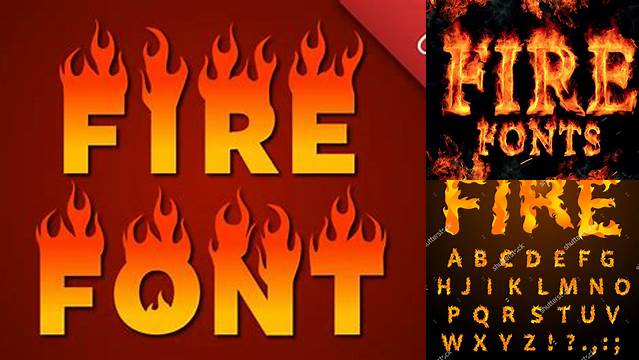
Fiery Fonts: Free Downloads For Doomsday Typography
Hey guys! Are you looking to add some serious heat to your designs? Then you've come to the right place! In this article, we're diving deep into the world of fire doomsday fonts, exploring everything you need to know to find, download, and use these scorching typefaces for free. We'll cover a ton of ground, from the different styles available to the best places to snag them, ensuring your projects pack a fiery punch. So, let's get started and set the typography world ablaze!
1. Understanding Fire Doomsday Fonts: What Makes Them Unique?
Fire doomsday fonts aren't just your average typefaces. They're designed to evoke a sense of destruction, intensity, and raw power. Think apocalyptic scenarios, fiery infernos, and the end of the world as we know it. These fonts often feature jagged edges, distressed textures, and a generally chaotic aesthetic. Fire doomsday fonts are perfect for projects that need a bold, attention-grabbing look, such as game titles, movie posters, and even heavy metal album covers. The unique character of these fonts stems from their ability to visually communicate urgency and drama. You can almost feel the heat radiating off the screen when you see a well-crafted fire doomsday font in action. This is why understanding the specific qualities that make them stand out is crucial for choosing the right font for your project.
2. Key Characteristics of Fire Doomsday Typography
So, what exactly defines fire doomsday typography? Several key characteristics set these fonts apart. First, many feature distressed or textured designs, giving the impression of being burned, cracked, or weathered. This adds a tactile quality to the text, making it feel more real and impactful. Another common trait is the use of sharp, jagged edges, which contribute to the sense of danger and chaos. The letterforms themselves often have an irregular or asymmetrical appearance, further enhancing the apocalyptic vibe. Fire doomsday fonts also tend to be bold and heavy, commanding attention and conveying a sense of strength. Think about the way flames flicker and dance – this dynamic movement is often mirrored in the letterforms, creating a visual representation of fire itself. By understanding these core characteristics, you can better appreciate the artistry behind fire doomsday typography and how it effectively communicates a specific mood and message.
3. Exploring Different Styles of Fire-Themed Fonts
The world of fire-themed fonts is surprisingly diverse. You're not just limited to one look! There are fonts that mimic the molten glow of lava, others that resemble the charred remnants of a blaze, and still more that capture the explosive energy of a wildfire. Some fonts lean towards a more grungy, industrial aesthetic, while others have a distinct fantasy or sci-fi flavor. For instance, a font with rough, uneven edges and a slightly smoldering texture might be perfect for a post-apocalyptic video game. On the other hand, a font with sharper, more angular letterforms could be ideal for a futuristic dystopia. It's all about finding the right style to match your specific project. Exploring different styles allows you to find that perfect fit, ensuring your message is conveyed with the intended impact and visual flair. Don't be afraid to experiment and see what sparks your creativity!
7. Installing Fire Doomsday Fonts on Windows and Mac
Okay, you've found the perfect fire doomsday font, downloaded it, and checked the license. Now what? It's time to install it on your computer! The process is pretty similar on both Windows and Mac. On Windows, you typically just right-click on the font file (usually a .ttf or .otf file) and select "Install." Alternatively, you can copy the font file to the Fonts folder in your Windows directory. Installing fire doomsday fonts on Windows and Mac is easy, so don't worry! On a Mac, you can double-click the font file and then click the "Install Font" button in the Font Book application. Once the font is installed, it should be available in your design software, like Adobe Photoshop or Illustrator. If you're having trouble, restarting your computer can sometimes help. With the font installed, you're ready to unleash its fiery power in your projects!
8. Using Fire Fonts in Adobe Photoshop: A Step-by-Step Guide
Adobe Photoshop is a powerhouse for graphic design, and it's a fantastic place to experiment with fire fonts. Using fire fonts in Adobe Photoshop can create truly striking visuals. Here’s a quick step-by-step guide: First, open Photoshop and create a new document or open an existing one. Select the Type Tool (T) and click on your canvas to start typing. Choose your newly installed fire doomsday font from the font dropdown menu in the Character panel. Adjust the size, color, and other properties of your text as needed. To really make the font pop, consider adding effects like a drop shadow, outer glow, or a gradient overlay. You can also experiment with blending modes to create unique and fiery textures. Photoshop’s layer styles can help to give the font that extra bit of realism. By experimenting with different techniques, you can create truly eye-catching typography that captures the essence of fire and destruction.
9. Integrating Fire Typography in Adobe Illustrator: Tips and Tricks
Just like Photoshop, Adobe Illustrator is another excellent tool for working with fire typography. Integrating fire typography in Adobe Illustrator allows for precise control over the design elements. To get started, create a new document in Illustrator and use the Type Tool (T) to add your text. Select your fire doomsday font from the Character panel and adjust the size and style. One of Illustrator's strengths is its ability to work with vector graphics, which means you can easily scale and manipulate your text without losing quality. Experiment with the Pathfinder panel to combine shapes and create unique letterforms. You can also use effects like Roughen or Zig Zag to add a distressed look to your text. Tips and tricks in Illustrator, such as using gradients and blends, can give your fire fonts a more dynamic and three-dimensional appearance. Consider adding a stroke with a rough brush to mimic the look of flames. With Illustrator’s powerful tools, you can craft typography that truly ignites your designs.
10. Best Practices for Combining Fire Fonts with Other Typefaces
Combining fire fonts with other typefaces can be tricky, but when done well, it can create a really compelling visual hierarchy. Best practices involve pairing fire doomsday fonts, which are often highly stylized, with simpler, more legible fonts. Think of fire fonts as the headline grabber – the star of the show – and other fonts as the supporting cast. For body text, choose a clean and easy-to-read font like Open Sans, Roboto, or Lato. These fonts won’t compete with the fire font and will ensure that your message is clear. In headlines, use the fire doomsday font sparingly, highlighting key words or phrases. Consider using different font weights and sizes to create visual interest. The goal is to create a balanced and harmonious design where each font plays its role effectively. A strong contrast between fonts can also add visual impact, but make sure the fonts still complement each other thematically. Careful planning will ensure your typography makes a bold statement without overwhelming the viewer.
11. Creating a Fiery Text Effect in Photoshop: A Practical Tutorial
Want to take your fire fonts to the next level? Creating a fiery text effect in Photoshop can add a dramatic and realistic touch to your designs. A practical tutorial typically starts with adding your text using a fire doomsday font. Then, you'll add several layer styles to simulate the look of flames. Start with a Bevel & Emboss to give the text some depth, followed by an Outer Glow to create a fiery aura. Next, you can add a Color Overlay or Gradient Overlay in shades of red, orange, and yellow to mimic the colors of fire. A key step is to use the Smudge Tool to distort the edges of the text and create a more organic, flame-like shape. You can also use the Liquify filter for more dramatic distortions. Adding texture, such as a fire or smoke overlay, can enhance the realism of the effect. Experiment with different blending modes for these overlays to see what works best. With a bit of practice, you can master this technique and create stunning fiery text that will set your designs ablaze!
12. Designing Logos with Fire Doomsday Fonts: Dos and Don'ts
Designing logos with fire doomsday fonts can be a bold choice, but it's important to approach it strategically. Dos and don'ts revolve around ensuring the logo remains legible and memorable. Fire fonts are often very stylized, so it’s crucial to choose one that is still clear and easy to read, even at smaller sizes. Don’t use overly intricate or complex fonts, as they can become muddled and difficult to decipher. Do consider the overall brand identity. Fire fonts are best suited for brands that want to convey a sense of power, intensity, or rebellion. Don’t use them if your brand is trying to project a more gentle or approachable image. Do keep the design simple and clean. A logo should be easily recognizable and scalable. Don’t clutter it with too many elements or effects. Do test the logo in various sizes and applications to ensure it looks good on everything from business cards to websites. Designing a logo is a delicate balance, and using fire fonts requires a thoughtful approach to ensure the final result is both impactful and effective.
13. Using Fire Fonts in Game Design: Setting the Right Tone
In game design, typography plays a crucial role in setting the tone and atmosphere. Using fire fonts in game design can instantly convey a sense of danger, excitement, or apocalyptic chaos. A fire doomsday font is perfect for titles, menus, and in-game text that needs to grab the player's attention. Consider the genre of your game. Fire fonts are particularly well-suited for action, adventure, and horror games, where a sense of urgency and intensity is desired. Experiment with different font styles to find the perfect match for your game's aesthetic. A rough, textured fire font might be ideal for a post-apocalyptic survival game, while a more stylized font could work well for a fantasy game with fire-based magic. Think about how the font will appear on screen. It needs to be legible and easy to read, even during fast-paced gameplay. Use color and effects to enhance the fiery look. Glowing text, embers, and smoke effects can add to the immersive experience. By carefully selecting and implementing fire fonts, you can significantly enhance the visual impact and emotional resonance of your game.
14. Creating Eye-Catching Movie Posters with Fire Typography
Movie posters are all about grabbing attention, and fire typography can be a powerful tool for creating an unforgettable visual impact. Creating eye-catching movie posters with fire typography often involves using bold, dramatic fonts that convey the genre and theme of the film. Fire doomsday fonts are particularly effective for action, thriller, and horror movies, where a sense of danger and excitement is paramount. Consider the overall composition of the poster. The font should complement the imagery and not compete with it. Use contrasting colors to make the text stand out. A fire font in a bright, fiery color against a dark background can be incredibly striking. Experiment with different text layouts and arrangements to create a dynamic and visually appealing design. Think about the emotional impact you want to create. Fire fonts can evoke feelings of intensity, passion, and destruction. Use this to your advantage to create a poster that resonates with your target audience. A well-designed poster can make or break a movie, and the right typography is key to making a lasting impression.
15. Fire Fonts for Album Artwork: Capturing the Musical Vibe
Fire fonts for album artwork can be a fantastic way to visually represent the energy and intensity of the music. Capturing the musical vibe through typography is essential in album design, and fire doomsday fonts are particularly well-suited for genres like metal, rock, and industrial. These fonts can convey a sense of raw power, aggression, and rebellion, perfectly mirroring the sonic landscape of the music. Think about the overall aesthetic of the album. A fire font with a grungy, distressed look might be perfect for a heavy metal album, while a more stylized font could work well for a gothic rock band. Consider the color palette. Fire fonts often look best in bold, contrasting colors, such as red, orange, and black. Use effects like glows, shadows, and textures to enhance the visual impact of the font. Fire fonts can make the album artwork look fiery and striking. Pay attention to the legibility of the font. Even though fire fonts are designed to be dramatic, they still need to be readable. Typography plays a critical role in conveying the artist’s message, and carefully chosen fonts can create a visual identity that perfectly complements the music.
16. Designing Book Covers with Fire Fonts: Genre Considerations
Designing book covers with fire fonts can be a great way to signal the genre and tone of the story. Genre considerations are key when choosing a typeface, and fire doomsday fonts are particularly effective for thrillers, horror, fantasy, and post-apocalyptic fiction. These fonts can instantly evoke feelings of danger, excitement, and suspense. Think about the specific story you're trying to tell. A fire font with a rough, textured look might be perfect for a gritty urban fantasy novel, while a more elegant font could work well for a historical fantasy epic. Consider the overall design of the cover. The font should complement the imagery and not compete with it. Use color to create a visual impact. Fire fonts often look striking in bold, contrasting colors against a dark or dramatic background. Think about the target audience. A fire font might appeal to readers who enjoy high-octane stories with plenty of action and suspense. Book covers are visual cues that tell readers what to expect, and the right typography can draw the reader in. By carefully selecting and implementing fire fonts, you can create book covers that are both eye-catching and genre-appropriate.
17. Web Design Applications: When to Use Fire Doomsday Fonts
Web design applications can greatly benefit from the use of fire doomsday fonts, but it’s important to use them strategically. When to use fire doomsday fonts often depends on the nature of the website and the message it’s trying to convey. Fire fonts are particularly well-suited for websites that want to project a bold, edgy, or high-energy image. Think about the overall aesthetic of your website. If you're designing a website for a rock band, a gaming community, or a brand that wants to convey a sense of rebellion or intensity, fire fonts can be a great choice. Consider the user experience. Fire fonts can be visually striking, but they should be used sparingly. Overusing them can make your website look cluttered and difficult to read. Use fire fonts primarily for headings, titles, and other key elements that you want to draw attention to. Choose a font that is legible on screen. Some highly stylized fire fonts might look great in print but be hard to read on a computer monitor. Always test your design on different devices and browsers to ensure it looks good across the board. Careful use of fire fonts can make your website stand out, grab visitors' attention, and create a memorable online experience.
18. Social Media Graphics: Making a Statement with Fire Fonts
Social media graphics need to be eye-catching to stand out in a crowded feed, and making a statement with fire fonts is a great way to grab attention. Fire doomsday fonts can add a sense of drama, intensity, and excitement to your social media posts. Think about the message you're trying to convey. Fire fonts are particularly effective for posts that are announcing something important, promoting an event, or sharing a bold statement. Consider your brand identity. Fire fonts are a good fit for brands that want to project a strong, edgy, or energetic image. Use fire fonts sparingly and strategically. Overusing them can make your graphics look cluttered and overwhelming. Choose a font that is legible, even at small sizes. Social media posts are often viewed on mobile devices, so readability is key. Experiment with different colors and effects to enhance the fiery look. A fire font in a bright, contrasting color can really pop. Think about the overall visual hierarchy. The font should complement the imagery and other elements in your graphic. Well-chosen fire fonts can help your social media graphics stand out from the crowd and make a lasting impression on your audience.
19. Print Design Projects: Unleashing the Power of Fire Fonts
Print design projects can greatly benefit from the bold and dramatic look of fire fonts. Unleashing the power of fire fonts in print requires careful consideration of the overall design and the intended message. Consider the type of project you're working on. Fire doomsday fonts are particularly well-suited for posters, flyers, album artwork, and book covers, where a sense of intensity and excitement is desired. Think about the target audience. Fire fonts often appeal to those interested in action, horror, and fantasy genres. Use fire fonts strategically. They can be powerful, but overusing them can make your design look cluttered and overwhelming. Choose a font that is legible. Even though fire fonts are designed to be dramatic, they still need to be readable in print. Consider the paper stock and printing techniques. The texture and finish of the paper can affect how the font looks. Experiment with different colors and effects to enhance the fiery look. Fire fonts in bold, contrasting colors can make a strong visual statement. In print, fire fonts can add an unforgettable visual element, but make sure it aligns with your project's goals.
20. Legal Considerations: Copyright and Font Usage
Legal considerations are crucial when using any font, including fire doomsday fonts. Copyright and font usage are governed by licensing agreements, which dictate how you can legally use a particular typeface. Understand the font license. Before using a font, carefully read the licensing agreement. This will tell you whether the font is free for personal use, commercial use, or both. Some fonts require you to purchase a license for commercial projects. Be aware of restrictions. Some licenses may limit the number of users who can access the font or the types of projects you can use it for. Legal consideration is key when using fonts. Keep records of your font licenses. This can help you prove that you have the right to use a font if you ever face a legal challenge. Respect the designer's rights. Font designers invest a lot of time and effort into creating their typefaces, so it's important to respect their copyright. Be careful when downloading fonts from unknown sources. Make sure you're downloading from a reputable website to avoid malware and copyright infringement. Font licensing can be complex, but by understanding the basics, you can protect yourself and ensure you're using fonts legally.
21. DIY Font Creation: Designing Your Own Fire Typography
For the truly adventurous, DIY font creation can be a rewarding way to get exactly the fire typography you need. Designing your own fire typography gives you complete control over every aspect of the font, allowing you to create something truly unique. Start with the basics. If you're new to font design, begin with simple letterforms and gradually add more complex details. Use font design software. Programs like FontForge, Glyphs, and FontLab Studio offer a range of tools for creating and editing fonts. Get inspired by existing fire fonts. Study the characteristics that make them effective, such as distressed textures, jagged edges, and bold strokes. Experiment with different techniques to mimic the look of fire. You can use digital drawing tools to create flame-like shapes and textures. Pay attention to kerning and spacing. The space between letters is crucial for readability, so take the time to adjust the kerning and spacing carefully. Test your font. Use it in different projects and sizes to see how it looks and make any necessary adjustments. DIY font creation is a significant undertaking, but the result can be a one-of-a-kind fire font that perfectly matches your creative vision.
22. Combining Fire Fonts with Special Effects in After Effects
If you're working with motion graphics or video, combining fire fonts with special effects in After Effects can create some truly spectacular results. After Effects is a powerful tool for adding visual effects, and it can be used to enhance the fiery look of your typography. Start with your text layer. Add your text using a fire doomsday font. Use layer styles to create a glowing effect. Add an Outer Glow and a Drop Shadow to make the text stand out. Experiment with different blend modes. Blend modes can create interesting interactions between your text and other layers. Add fire and smoke elements. You can use stock footage or create your own fire and smoke effects. Use particle systems to create dynamic effects. After Effects' particle systems can be used to generate sparks, embers, and other fiery elements. Animate your text. Use keyframes to animate the position, scale, and rotation of your text to create a dynamic and engaging animation. In After Effects, combining fire fonts with special effects can take the look and feel of text to another level.
23. Pairing Fire Fonts with Color Palettes: Achieving the Right Mood
Pairing fire fonts with color palettes is crucial for achieving the right mood in your designs. The colors you use can significantly impact how your fire typography is perceived. Think about the emotions you want to evoke. Red, orange, and yellow are classic fire colors and convey a sense of passion, energy, and excitement. Black and dark gray can create a more intense and dramatic look. Consider the overall design context. The color palette should complement the imagery and other elements in your design. Use contrasting colors to make your fire font stand out. A bright fire font against a dark background can be very effective. Experiment with different color combinations. Try using gradients or color overlays to add depth and dimension to your text. Think about the psychological effects of color. Different colors can evoke different emotions, so choose your palette carefully. Colors are the emotions of your work. By thoughtfully pairing fire fonts with color palettes, you can create designs that are both visually striking and emotionally resonant.
24. Using Fire Fonts to Create a Sense of Urgency
Using fire fonts to create a sense of urgency is a powerful technique in design. Fire doomsday fonts inherently convey a sense of danger and immediacy, making them ideal for projects where you want to grab attention and prompt action. Think about the context in which you're using the font. Fire fonts are well-suited for sales promotions, event announcements, and calls to action. Use the font sparingly and strategically. Overusing it can dilute its impact. Pair the fire font with urgent language. Phrases like "Limited Time Offer," "Don't Miss Out," and "Act Now" can reinforce the sense of urgency. Use contrasting colors to make the text stand out. A bright fire font against a dark background can be particularly effective. Consider the overall design of your project. The fire font should complement the other elements and not compete with them. Fire fonts can make urgency clear. When used effectively, fire fonts can create a compelling sense of urgency that motivates your audience to take action.
25. The Psychology of Fire Fonts: How They Impact Viewers
The psychology of fire fonts is fascinating, as these typefaces can have a profound impact on viewers. Fire doomsday fonts evoke strong emotions and associations related to danger, excitement, and destruction. Think about the cultural associations of fire. Fire is often seen as both a destructive force and a source of warmth and light. The psychology of fire fonts depends on fire itself. Fire fonts tap into these primal associations, creating a sense of intensity and drama. Consider the visual characteristics of fire fonts. Jagged edges, distressed textures, and bold strokes contribute to the feeling of urgency and power. Think about the emotions you want to evoke. If you want to create a sense of excitement, energy, or even fear, fire fonts can be a great choice. Be mindful of the negative associations. Fire fonts can also evoke feelings of destruction and chaos, so use them carefully. Typography should be planned carefully. Understanding the psychology behind fire fonts can help you use them more effectively to connect with your audience and convey your message.
26. Fire Fonts in Marketing Materials: Attracting Attention
Fire fonts in marketing materials are a surefire way of attracting attention. The bold, dramatic look of fire doomsday fonts can help your marketing messages stand out from the crowd. Think about your target audience. Fire fonts often appeal to younger demographics and those interested in action, adventure, and edgy themes. Consider your brand identity. If your brand wants to project a sense of excitement, energy, or rebellion, fire fonts can be a good fit. Use the font strategically. While they’re great at attention-grabbing, fonts shouldn’t be overused. Fire fonts work best for headlines, titles, and other key elements. Ensure readability, in print marketing copy readability is key. Choose a font that is legible, even at smaller sizes. Experiment with color and effects. A bright fire font against a dark background can be very effective. Fire fonts can attract through marketing materials. In marketing, fire fonts can be a powerful tool for capturing attention and conveying a sense of excitement and urgency.
27. Fire Fonts in Event Posters: Creating Hype
Fire fonts in event posters can be instrumental in creating hype and excitement. The fiery aesthetic of fire doomsday fonts is perfect for promoting events that have a high-energy or edgy vibe. Fire fonts are great for excitement for events. Consider the type of event you're promoting. Fire fonts are particularly well-suited for concerts, festivals, gaming tournaments, and other events that want to create a sense of intensity and excitement. Think about your target audience. Fire fonts often appeal to younger demographics and those interested in music, gaming, and extreme sports. Use the font to convey the event's theme. The typography, the feeling it gives should complement the imagery and other elements in your poster. Choose a font that is legible from a distance. Event posters are often viewed from afar, so readability is key. Use contrasting colors to make the text stand out. A bright fire font against a dark background can be very effective. By using fire fonts strategically, you can design event posters that are both visually striking and effective at generating buzz.
28. Creating a Burning Effect with Fire Fonts: Step-by-Step Guide
Creating a burning effect with fire fonts can add an extra layer of realism and drama to your designs. Here's a step-by-step guide to achieving this effect: Start with your text. Add your text using a fire doomsday font in your design software. Add a Bevel & Emboss layer style. This will give the text some depth and dimension. Add an Outer Glow layer style. This will create a fiery aura around the text. Use colors that mimic fire, like reds, oranges, and yellows. Add a Color Overlay or Gradient Overlay. This will further enhance the fiery look. Use the Smudge Tool to distort the edges of the text. This will create a more organic, flame-like shape. Add a fire or smoke overlay. This will add texture and realism to the effect. Experiment with blending modes. Different blending modes can create unique effects. Adjust the opacity and fill of the layers. This will help you fine-tune the burning effect. By following these steps, you can create a convincing burning effect with fire fonts that will set your designs ablaze.
29. Fire Fonts and Typography Trends: Staying Current
Fire fonts and typography trends are constantly evolving, so it's important to staying current with the latest styles and techniques. The world of typography is always moving, typography can move fast. Look for inspiration in design blogs, magazines, and social media. Seeing what other designers are doing can spark new ideas. Experiment with different fire font styles. Try combining classic fire fonts with more modern and minimalist typefaces. Pay attention to color trends. The colors you use can significantly impact the look and feel of your fire typography. Consider the overall design context. The font should complement the imagery and other elements in your design. Typography and designs should coexist. Don't be afraid to break the rules. Sometimes the most innovative designs come from pushing boundaries and trying new things. Fire fonts and typography trends change, you can stay on top of it. Keeping an eye on typography trends can help you create fire font designs that are both stylish and effective.
30. The Future of Fire Typography: What's Next?
The future of fire typography is exciting, with new technologies and design trends constantly shaping the landscape. Fire typography has new potential, the possibilities are vast. Think about the rise of variable fonts. Variable fonts allow for greater flexibility and customization, opening up new possibilities for fire font design. Consider the integration of animation and motion graphics. Fire typography can be brought to life with dynamic effects and animations. Imagine fonts that flicker and dance like real flames. Envision 3D typography and virtual reality. Fire fonts could be used to create immersive and interactive experiences in virtual environments. Think about the use of AI and machine learning in font design. AI could be used to generate new fire font styles and automate the design process. There’s no telling what’s coming down the line. The future of fire typography is sure to be filled with innovation and creativity, pushing the boundaries of what's possible with this powerful design tool.